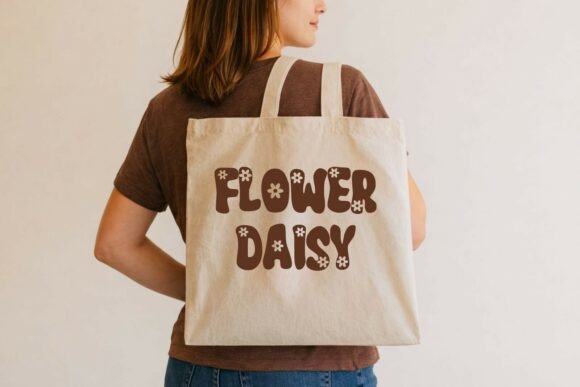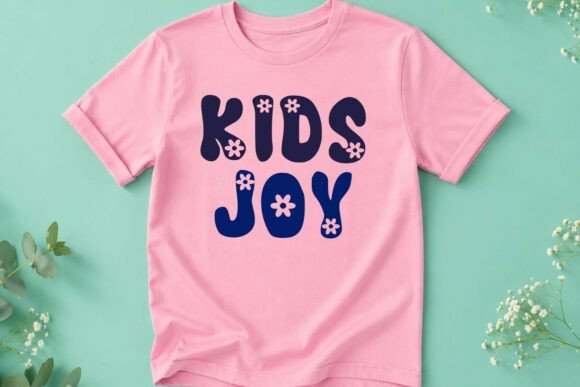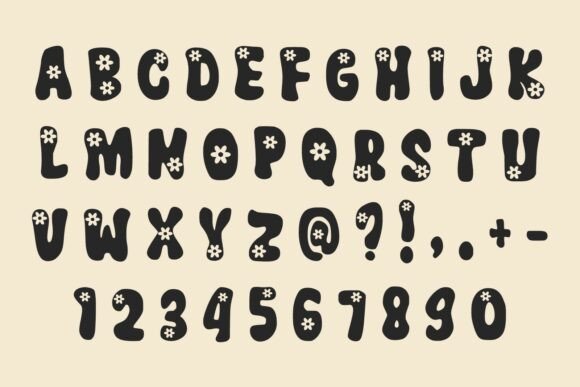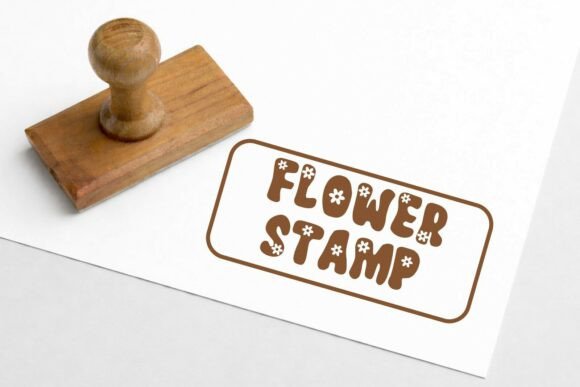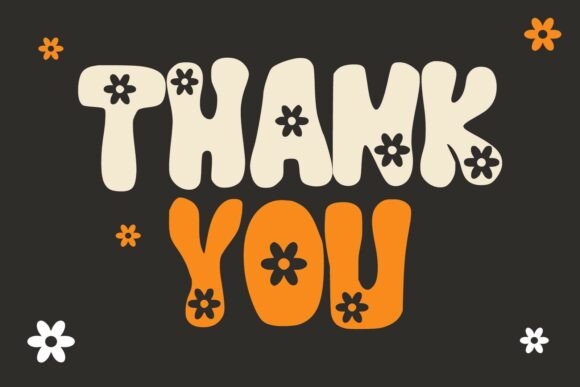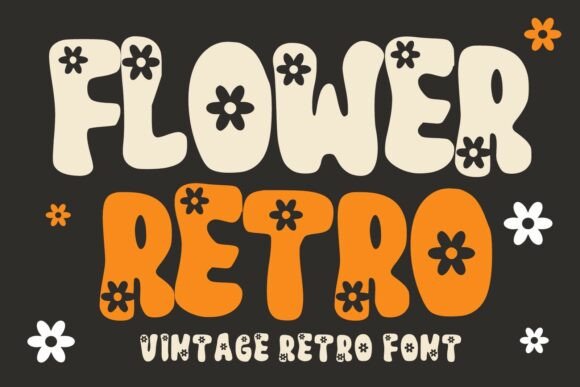
Introducing Flower Retro Font: A Playful and Charming Typeface
Are you looking for a font that can add a touch of nostalgia and playfulness to your designs? Look no further than the Flower Retro Font, a delightful typeface inspired by the retro flower power aesthetics of the past. This font is perfect for designers and crafters who want to create fun and eye-catching projects that evoke a sense of joy and whimsy.
What is Flower Retro Font?
Flower Retro Vintage Display Font is a unique and charming typeface that features rounded letters decorated with cute floral elements. The font’s design is inspired by the iconic flower power movement of the 1960s and 1970s, with its playful and carefree vibe. Each letter is carefully crafted to bring a sense of nostalgia and fun to your designs, making it perfect for a wide range of creative projects.
Key Features of Flower Retro Font
- Playful and charming design: The font’s rounded letters and cute floral elements give it a playful and charming personality that’s sure to delight.
- Retro aesthetic: The font’s design is inspired by the retro flower power movement, making it perfect for projects that require a nostalgic touch.
- Versatile: The font is suitable for a wide range of creative projects, from posters and stickers to kids’ projects, branding, t-shirt designs, packaging, and retro-themed artwork.
Uses for Flower Retro Font
Flower Retro Font is a versatile typeface that can be used for a wide range of creative projects. Here are some ideas to get you started:
- Posters and flyers: Add a touch of nostalgia and playfulness to your posters and flyers with this charming font.
- Stickers and labels: Use the font to create fun and eye-catching stickers and labels for kids’ projects, parties, and events.
- Kids’ projects: The font is perfect for kids’ projects, such as coloring books, activity sheets, and educational materials.
- Branding and packaging: Use the font to create a unique and memorable brand identity for your business or product.
- T-shirt designs: Create fun and eye-catching t-shirt designs with this playful font.
- Retro-themed artwork: The font is perfect for creating retro-themed artwork, such as illustrations, graphics, and digital art.
Why Choose Flower Retro Font?
There are many reasons why you should choose Flower Retro Font for your next creative project. Here are a few:
- Unique and eye-catching design: The font’s playful and charming design is sure to grab attention and evoke a sense of joy and whimsy.
- High-quality design: The font is carefully crafted to ensure that it is of high quality and suitable for professional use.